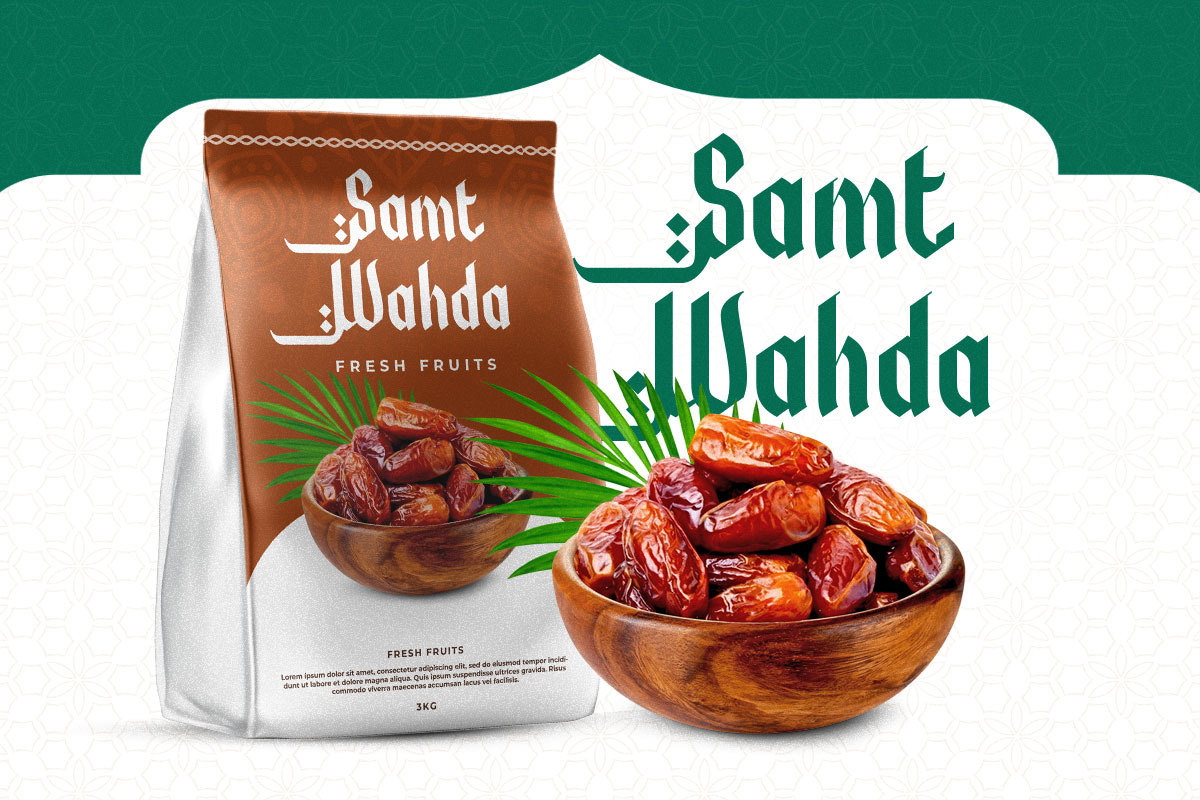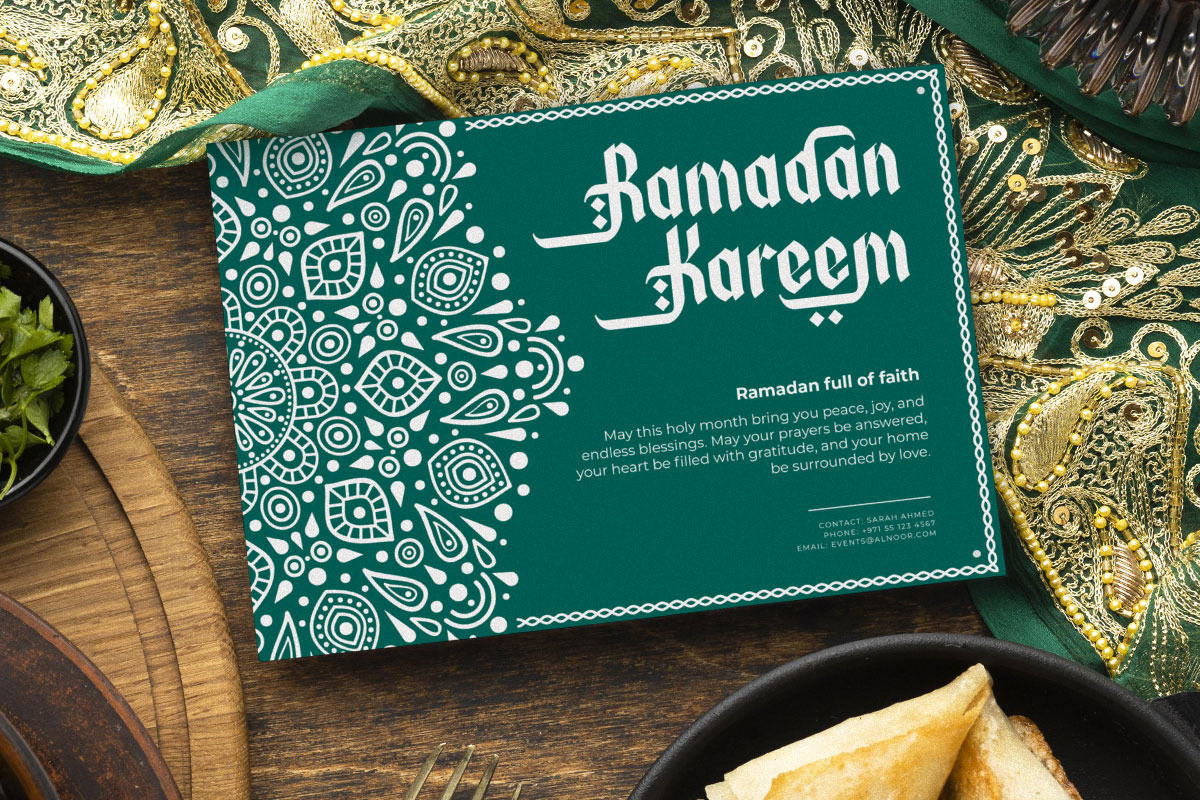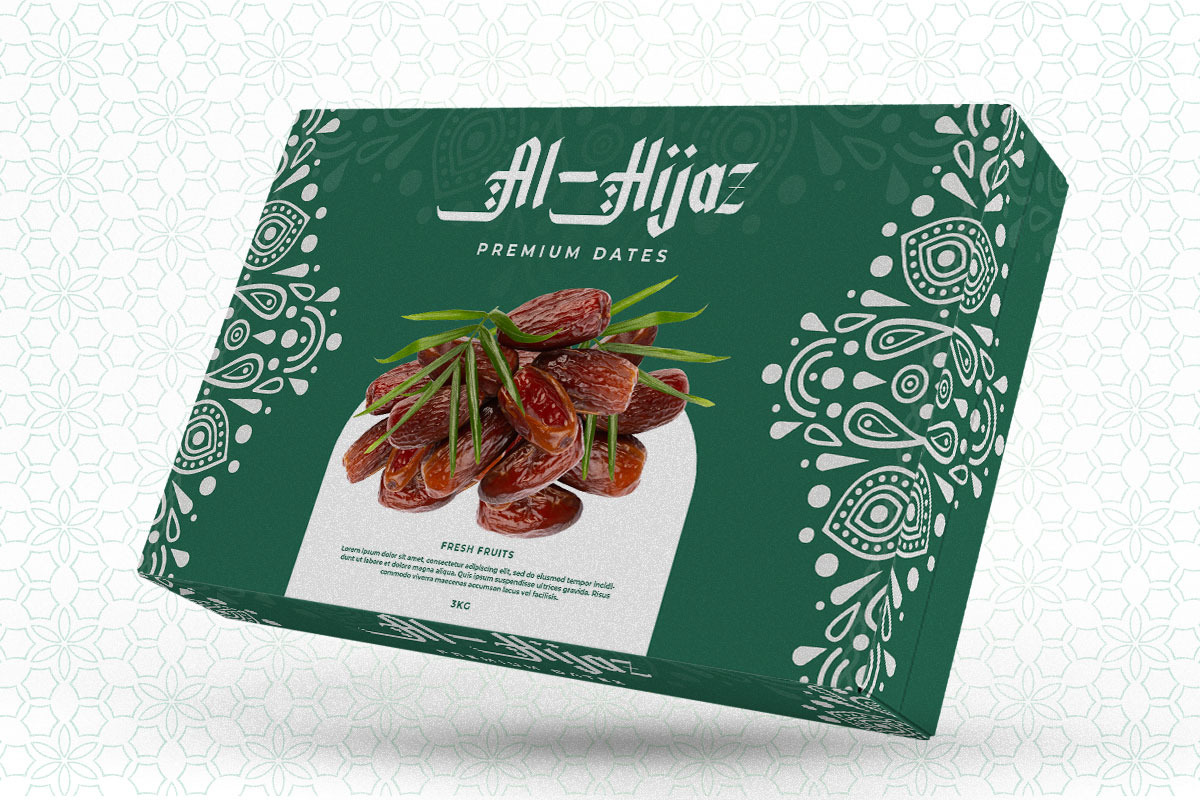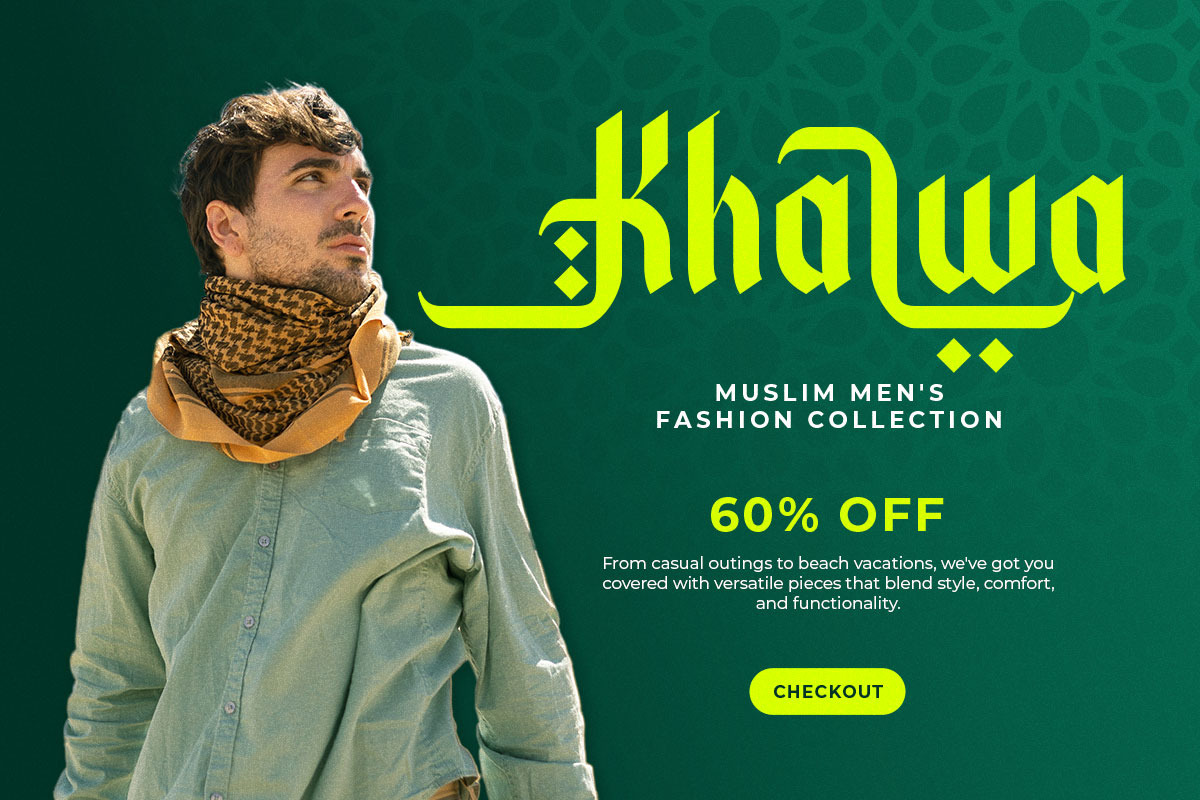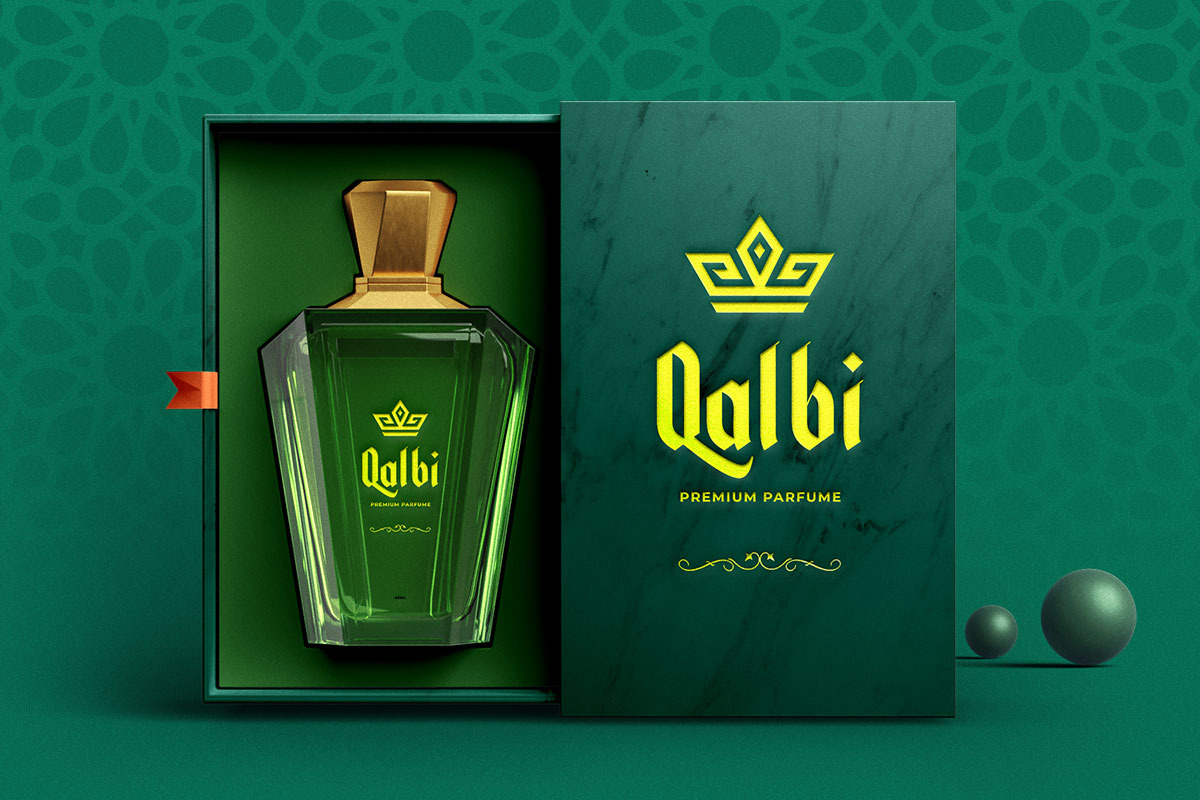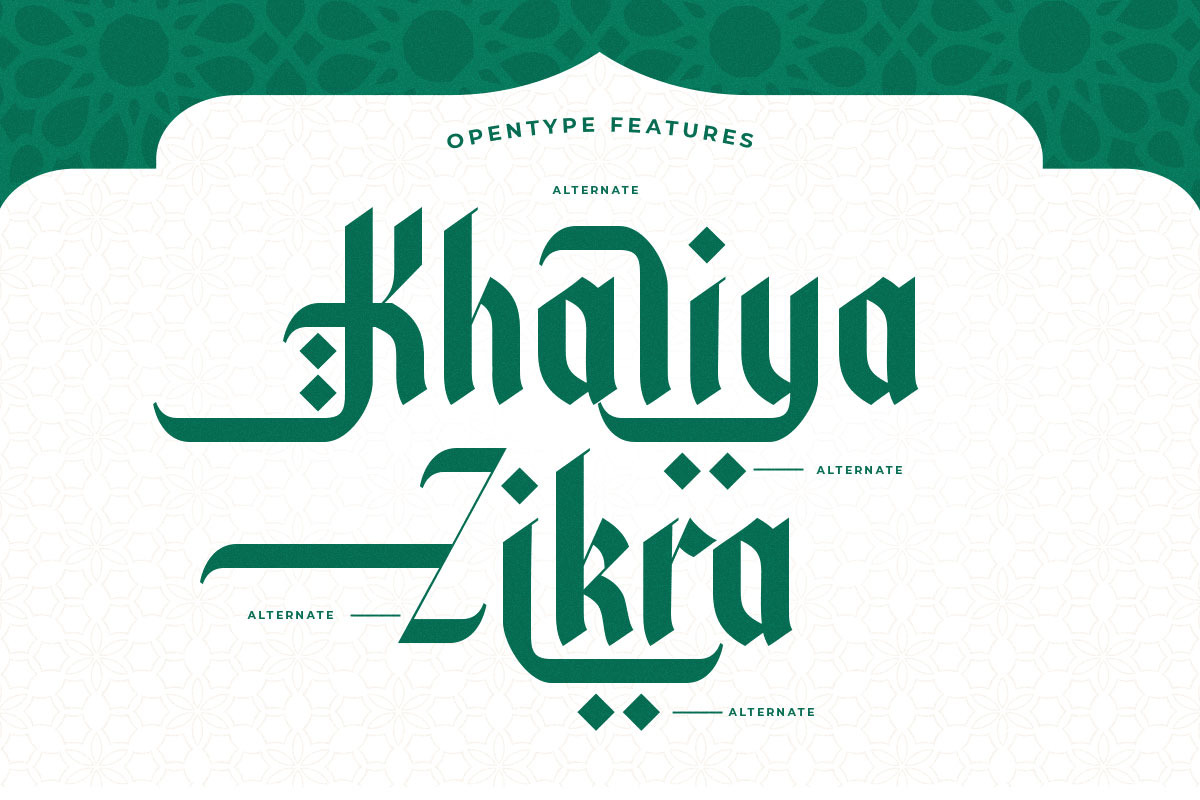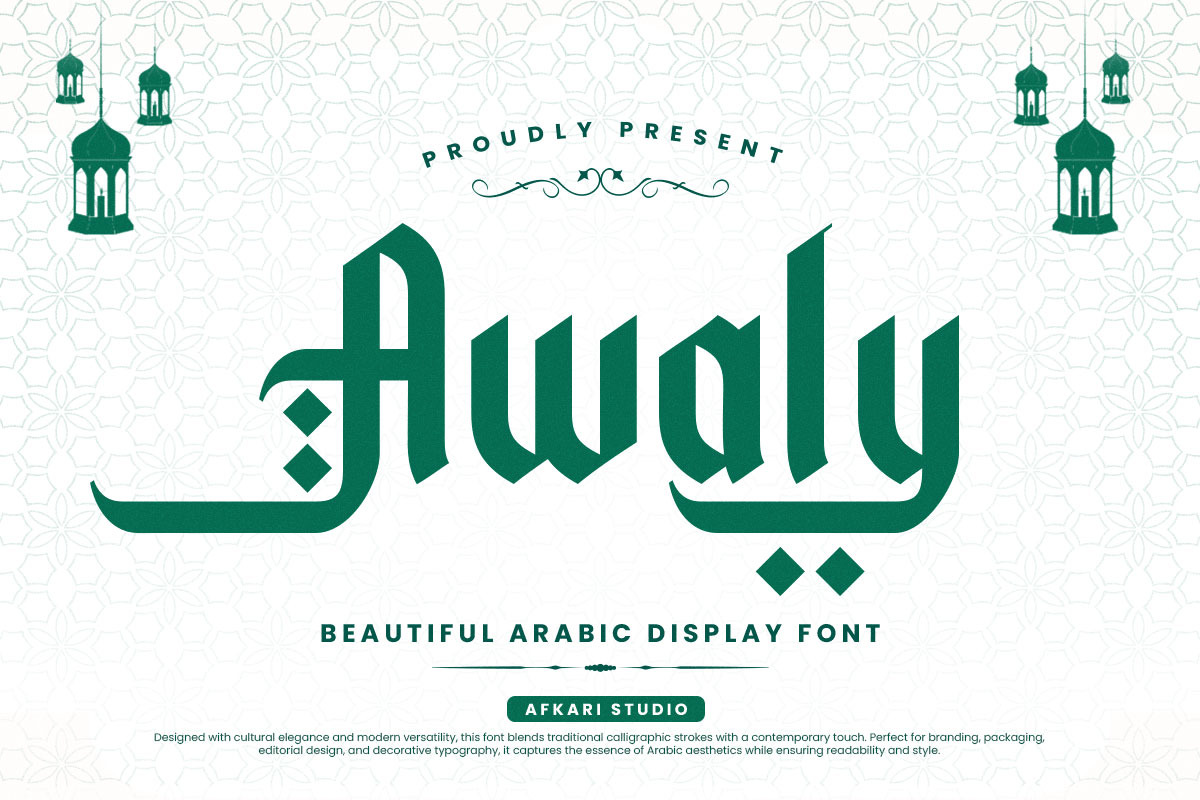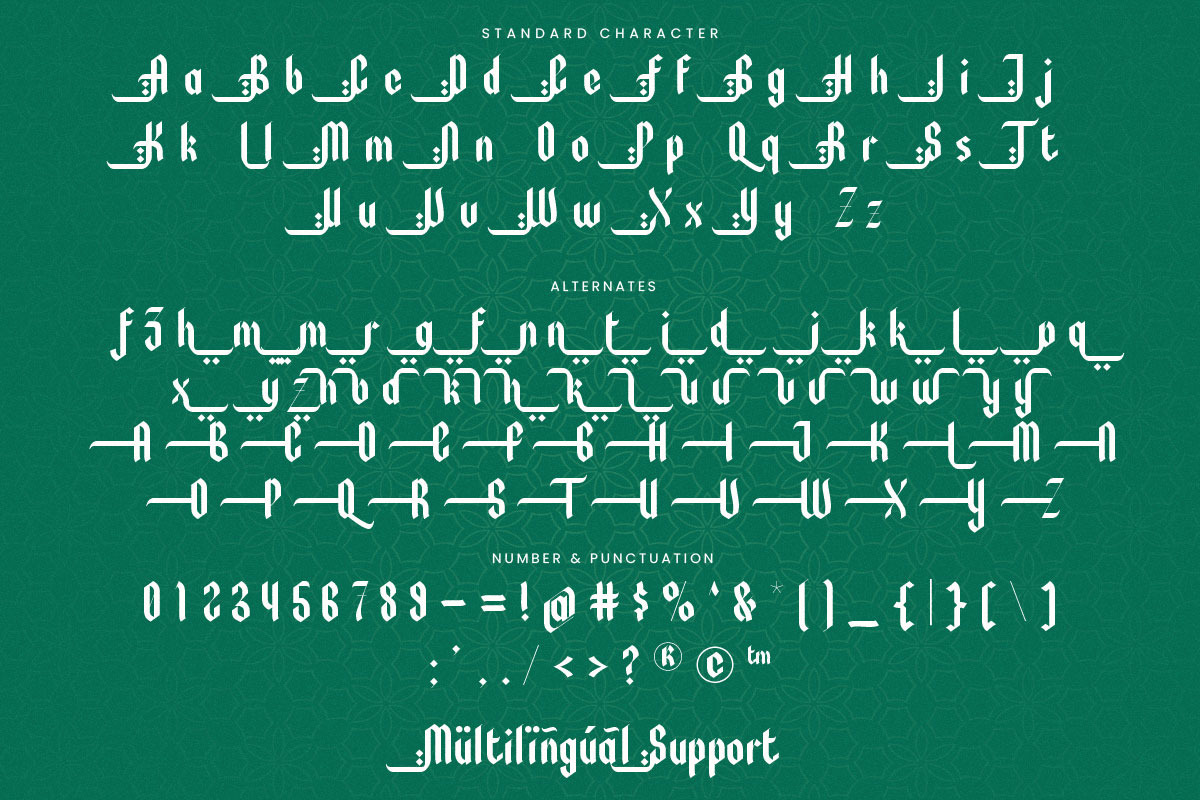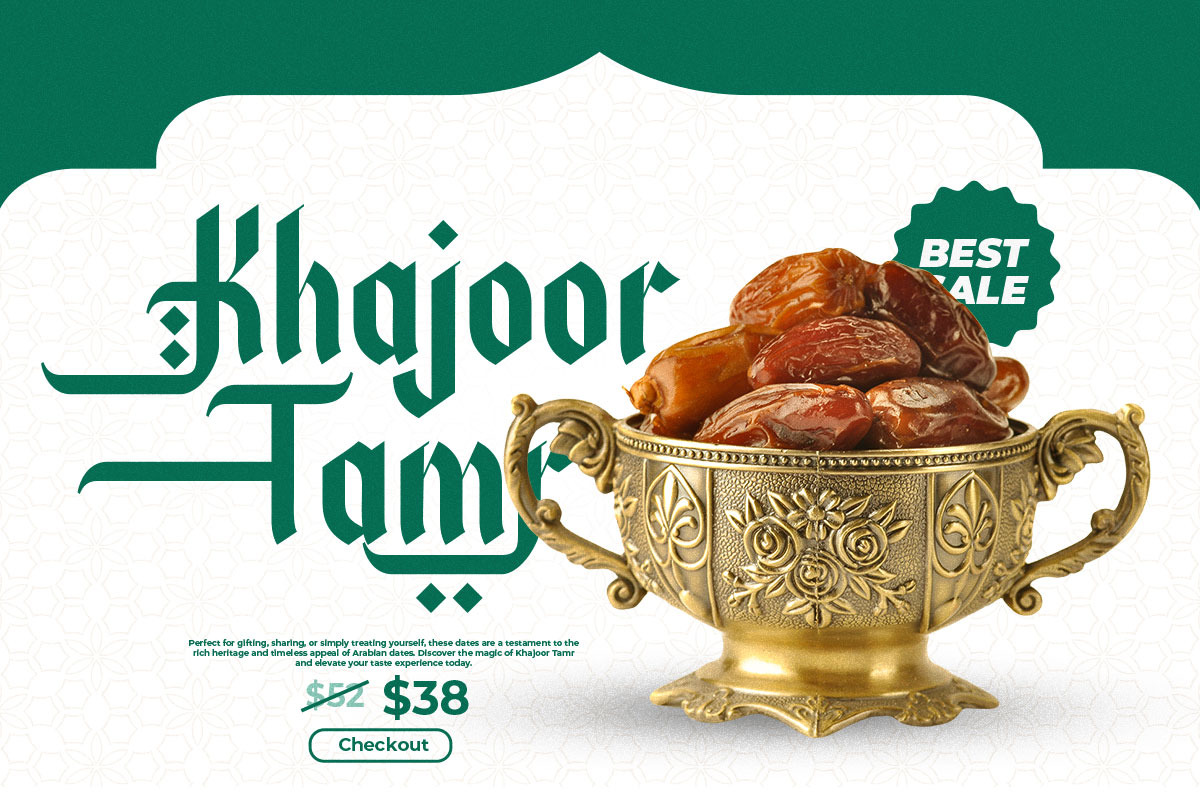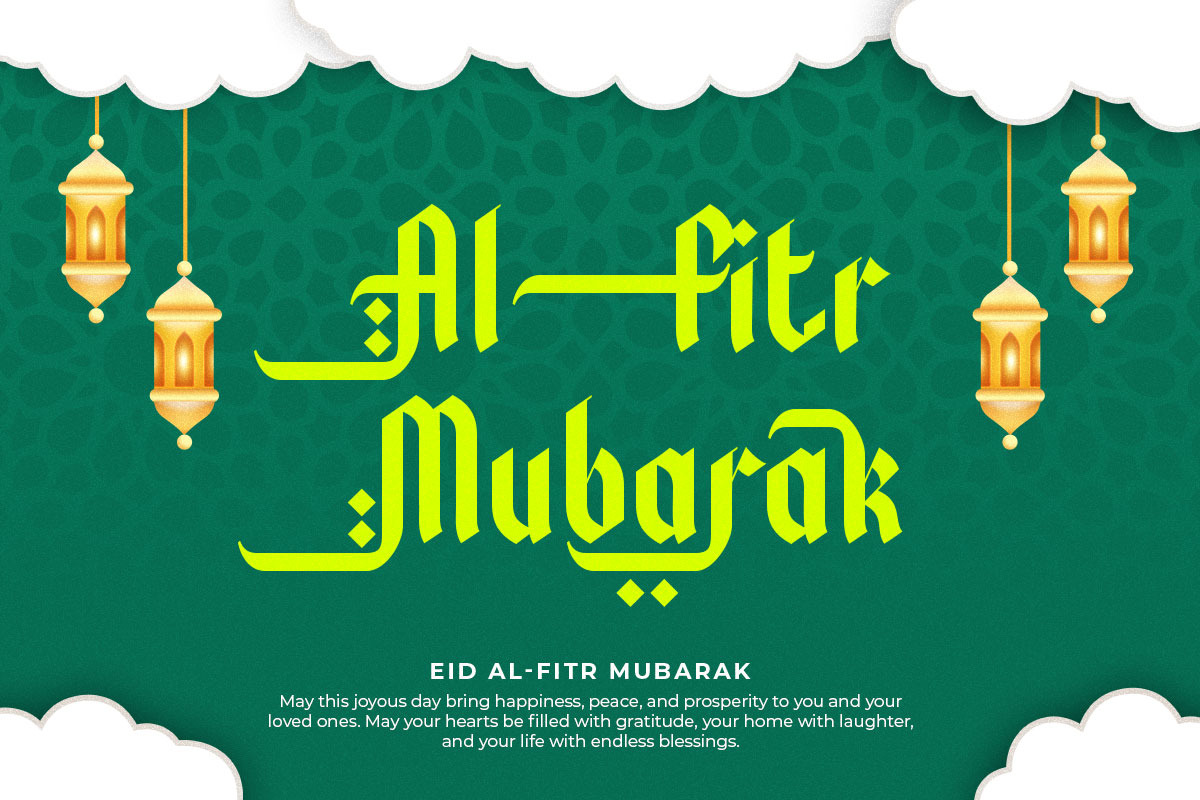
Awaly - Arabic Font Style Typeface
Awaly is a beautifully crafted Arabic-style typeface that blends traditional calligraphic elegance with modern versatility. Designed to capture the fluidity and grace of Arabic letterforms, this font is perfect for branding, packaging, headlines, posters, and Islamic designs.
With a smooth, flowing structure and carefully designed curves, Awaly brings an authentic Middle Eastern aesthetic to any project. Whether you're designing for Ramadan campaigns, halal products, or cultural events, this typeface ensures a refined and artistic touch.
Features;
- Uppercase, Lowercase, Number, and Punctuation
- Special Alternates and ligatures
- Mültîlíñgúãl Sùppört for; ä ö ü Ä Ö Ü ß ¿ ¡
Elevate your designs with Awaly – where Arabic heritage meets contemporary creativity! 🌙